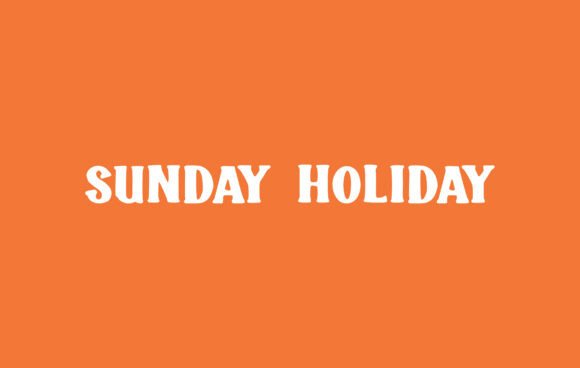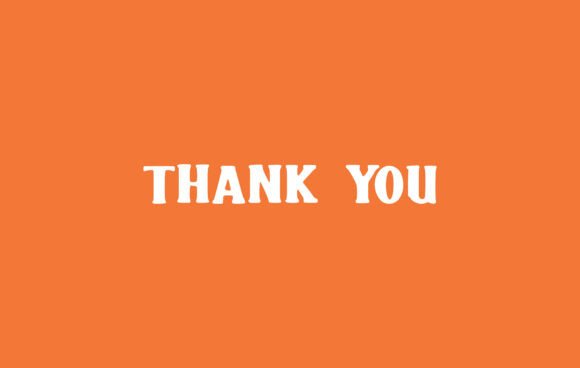
Introduction to Outdoor Font
Imagine yourself standing in the middle of a lush forest, surrounded by towering trees and the soothing sounds of nature. As you gaze up at the sky, the wind whispers through the leaves, and you feel a sense of freedom and adventure wash over you. That’s the essence of the Outdoor Font – a fun and energetic display font that embodies the spirit of the wild.
Whether you’re working on a creative project or simply need a design resource that exudes excitement and adventure, the Outdoor Font is the perfect choice. Its wide, playful letterforms have a retro feel that’s sure to captivate your audience and leave a lasting impression. And the best part? You can download it for free, making it an accessible and valuable addition to your design toolkit.
Key Features of Outdoor Font
• Transparent background: Perfect for creative projects where you need to add text over images or videos.
• High-quality design: This font is ideal for any design resource that requires a premium look and feel.
• High-resolution design: The font is designed at 300 DPI for crisp and clear text, even at larger sizes.
• Perfect for outdoor-themed projects: This font is ideal for designs related to nature, sports, or travel, with its unique and rugged feel.
• Size: The font family includes a range of weights and styles, from Light to Bold, to suit your creative project’s needs.
Honest Review: Outdoor Font
As a designer, I’m always on the lookout for high-quality fonts that can elevate my creative projects. The Outdoor Font is one of the latest additions to my design resource library, and I’m excited to share my honest review with you.
• ✨ The font has a beautiful, natural feel that’s perfect for outdoor-themed projects or designs that require a sense of adventure.
• ✨ The transparent background allows for seamless integration with other design elements, making it a great choice for logos, icons, and other creative projects.
• ⚠️ The font is not as versatile as some other fonts on the market, and may not be suitable for all types of projects.
Overall, I’m impressed with the Outdoor Font’s unique design and high quality. While it may have some limitations, it’s a great addition to any designer’s library, especially for outdoor-themed projects or designs that require a sense of adventure.
How to Use Outdoor Font
Outdoor Font is a versatile and high-quality design resource perfect for creative projects. This font features a transparent background, making it ideal for designs where you want to focus on the text without any distractions.
Some tips for getting the most out of Outdoor Font include using it for headings, titles, and other text elements where you want to make a statement. Common use cases include wedding invitations, event flyers, and outdoor advertising.
Lato has a similar feel to Outdoor Font but with a more rounded and friendly design. Use Lato when you need a font that’s both elegant and approachable.
Montserrat is a geometric sans-serif font that’s perfect for creative projects that require a high-quality design resource. It’s available for free download and features a clean, modern design that’s easy to read.